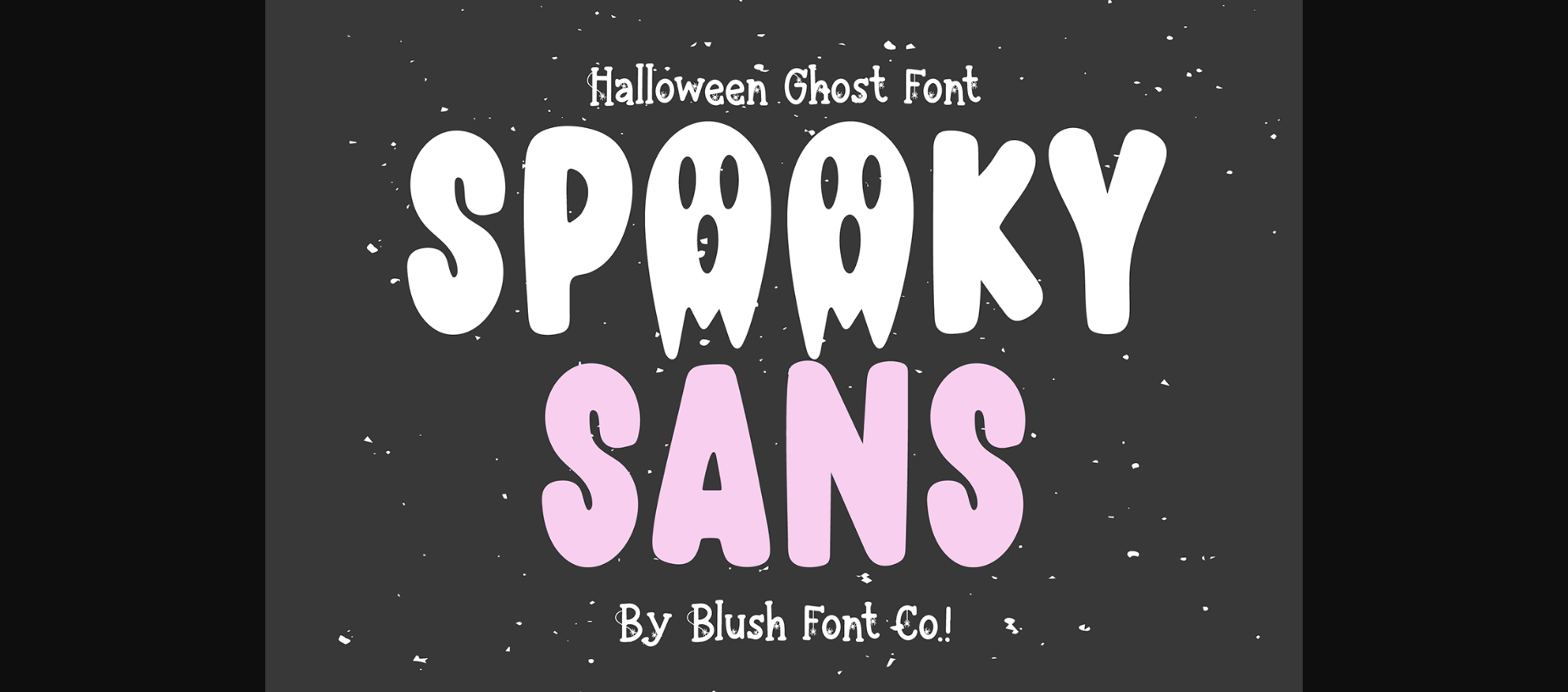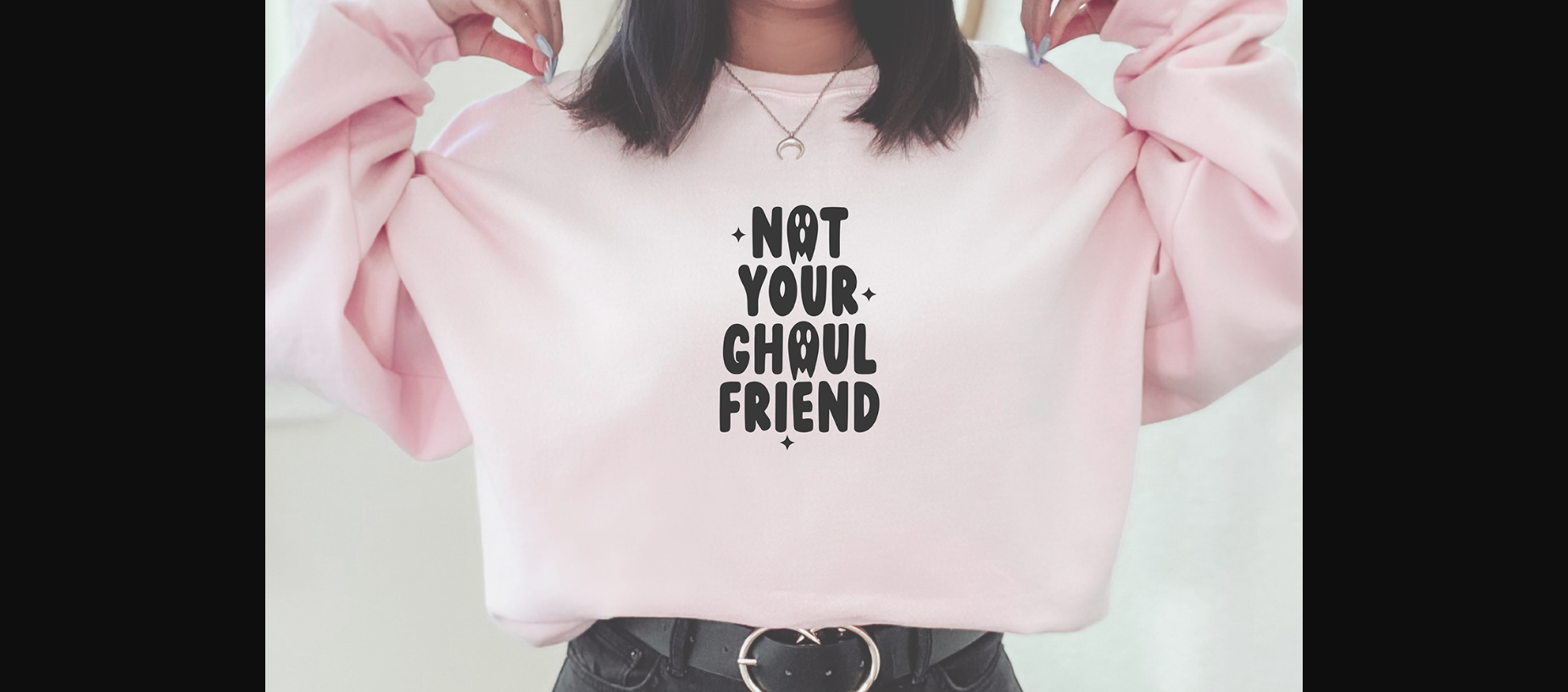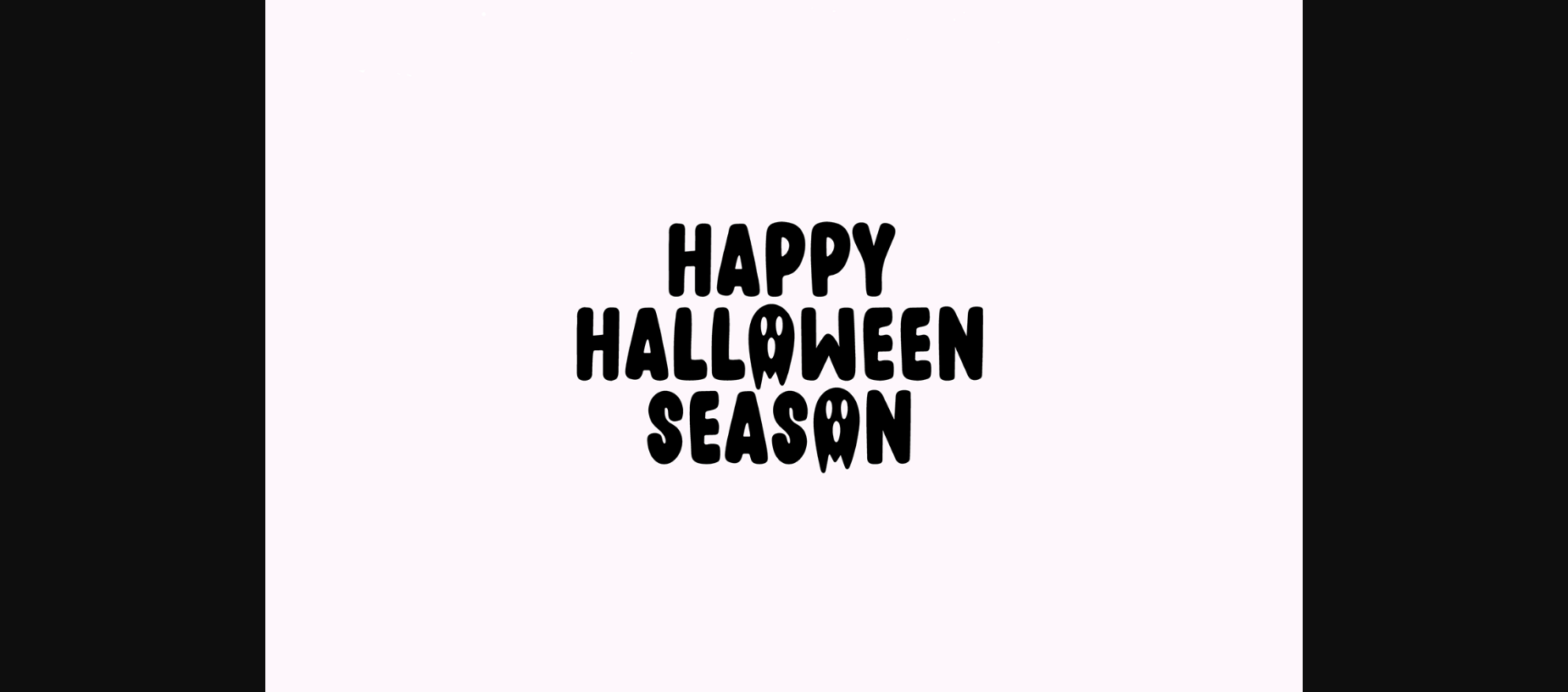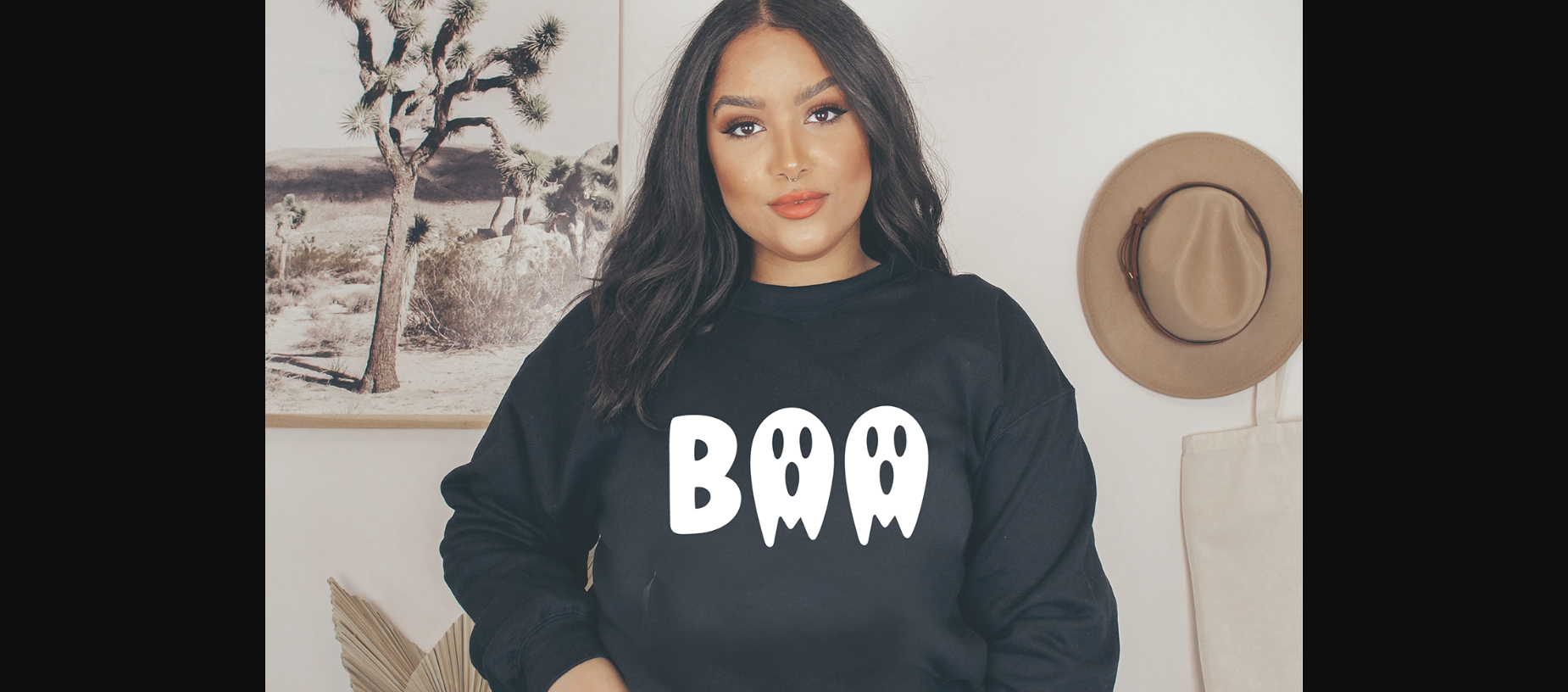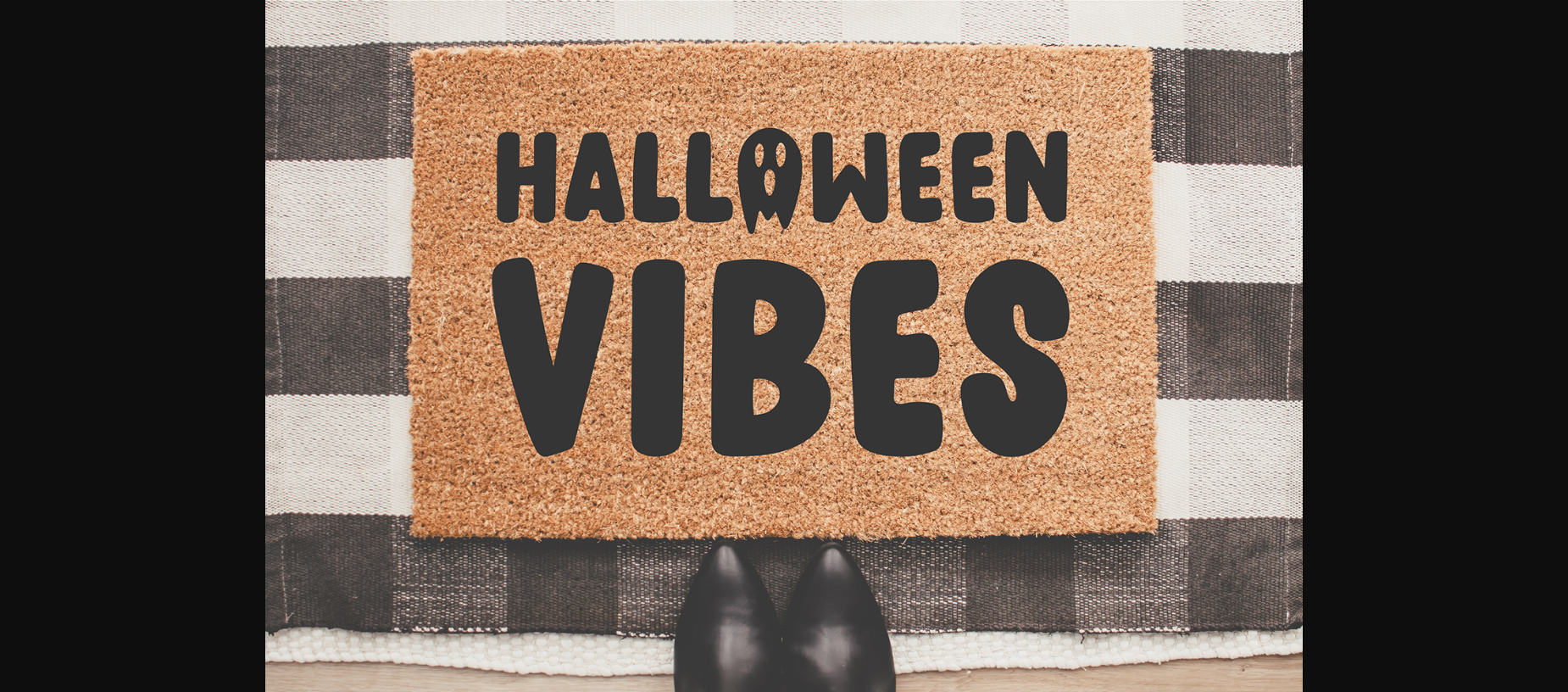
About Spooky Sans Font
“SPOOKY SANS” Bold soft block Halloween font.
This will work great for your Halloween party invitations, web graphics, and other Halloween crafts.